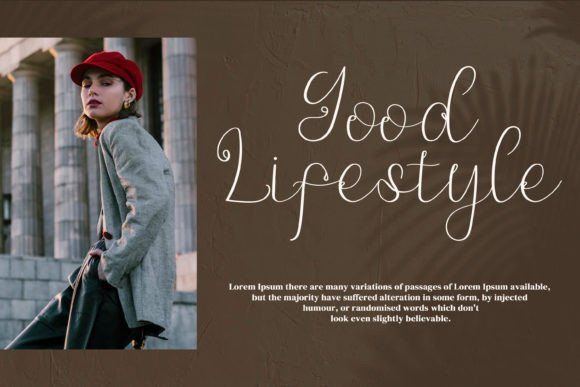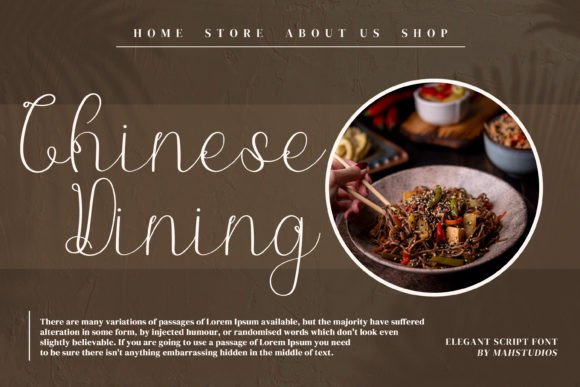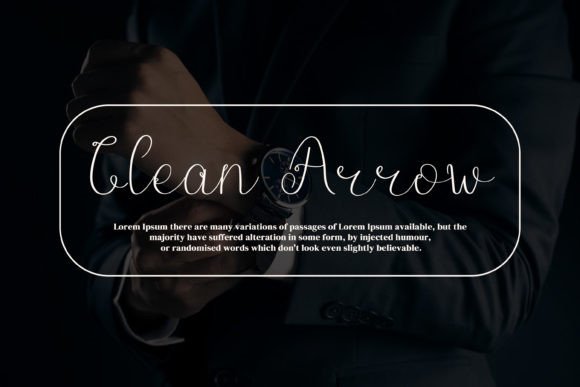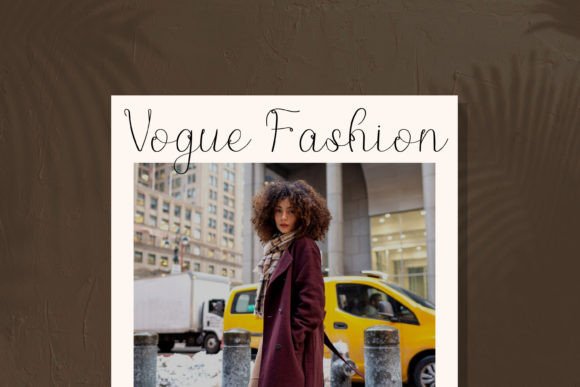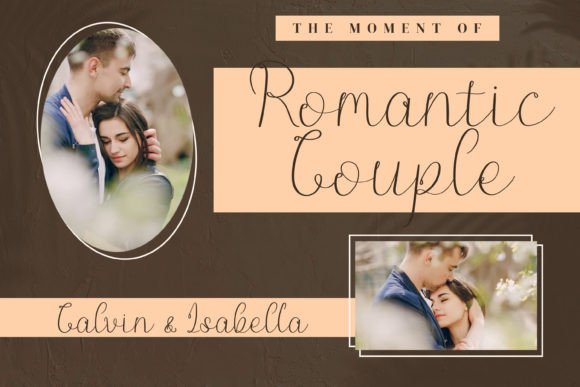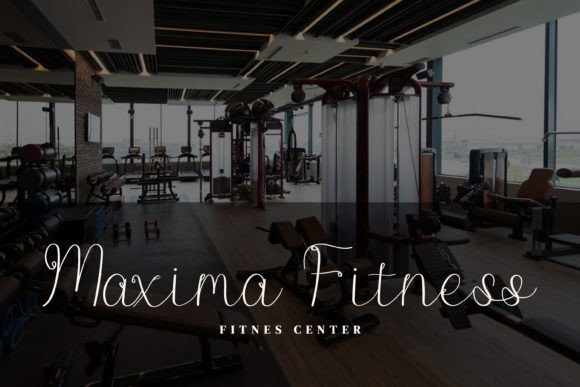
Introduction to Roccila Font
Add an element of elegance to your designs with the sophisticated Roccila handwriting font.
Its flowing lines and delicate curves are ideal for adding a touch of sophistication to wedding invitations, social media graphics, or branding materials Keep in mind that the font is PUA encoded, meaning that you can access all delightful glyphs and swashes freely.
Roccila Font offers exceptional quality and versatility, making it a valuable addition to your design toolkit. Whether you’re creating for personal projects or commercial use, Roccila Font delivers professional results.